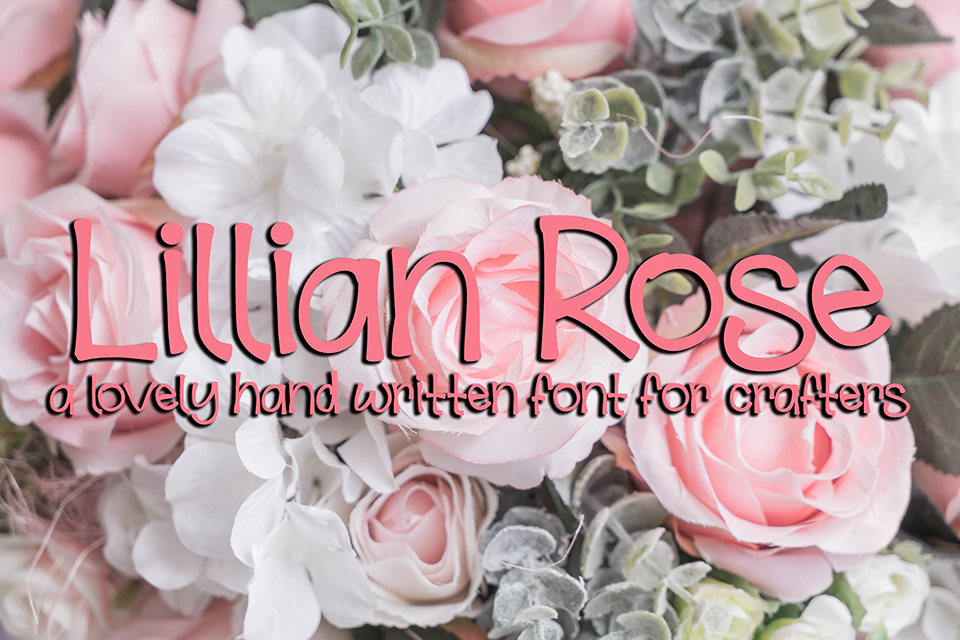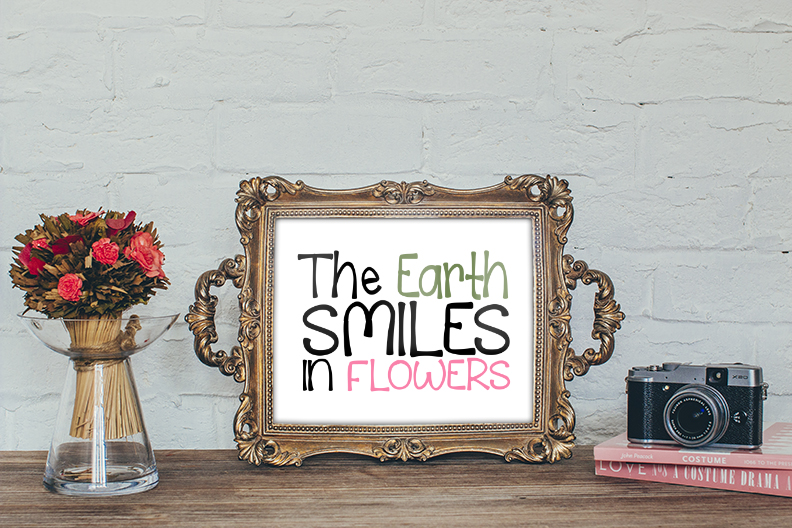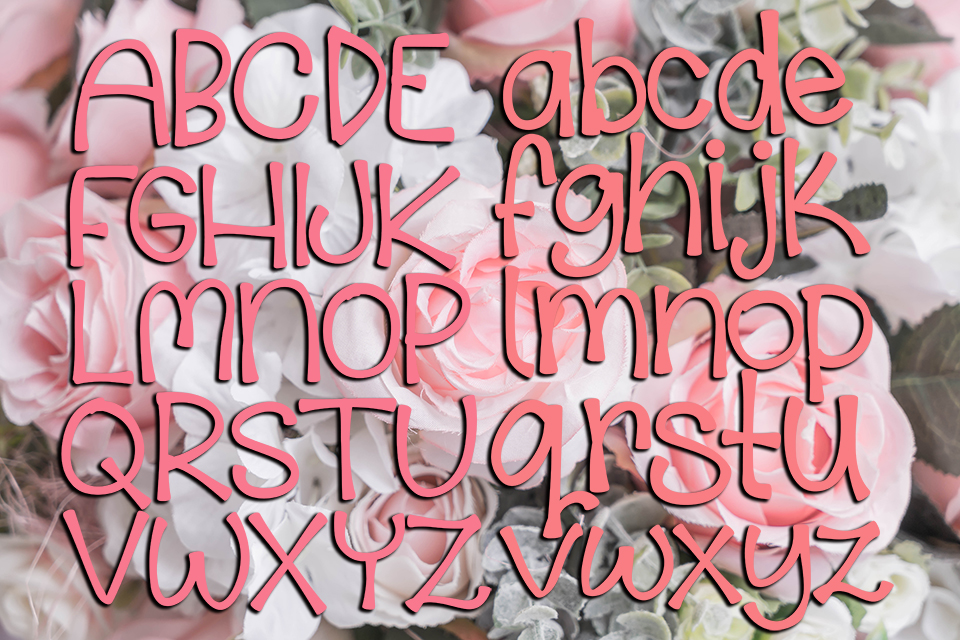
Lillian Rose Font
About Lillian Rose Font
A hand drawn font by Scout and Rose Design Co perfect for crafting or creating cute apparel for the littlest in your life!